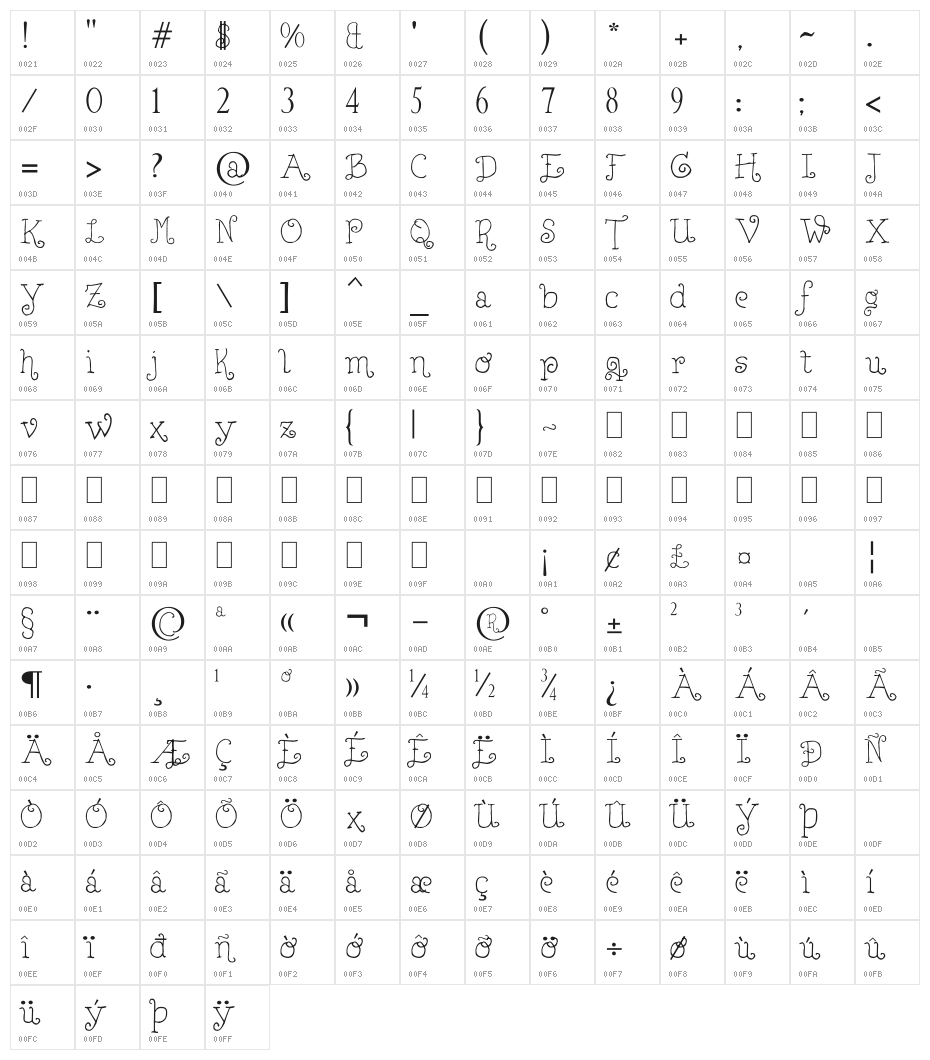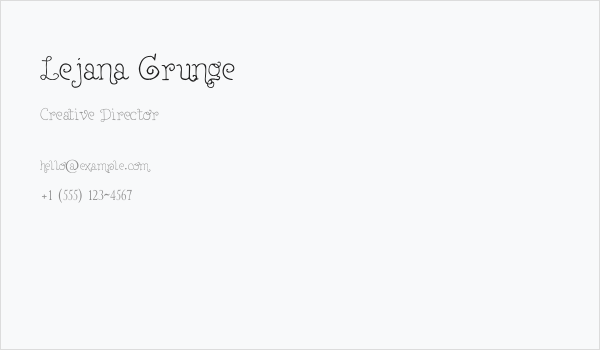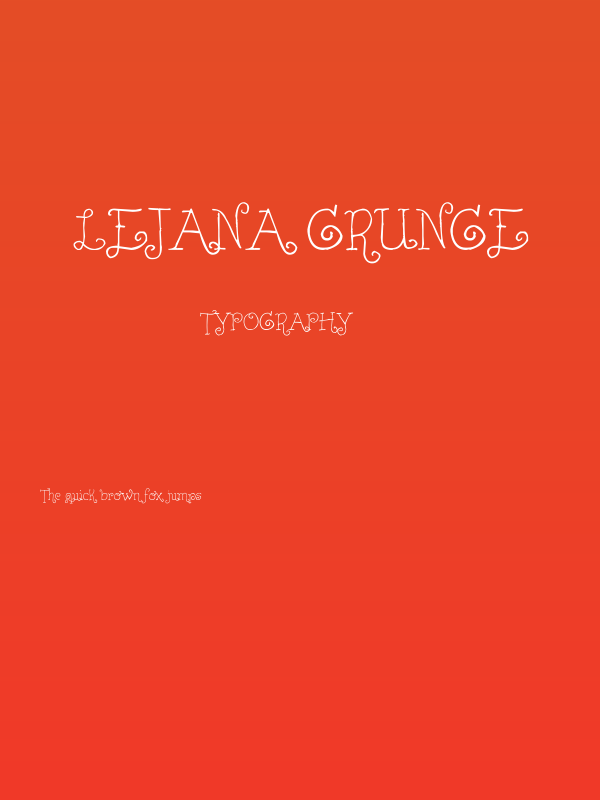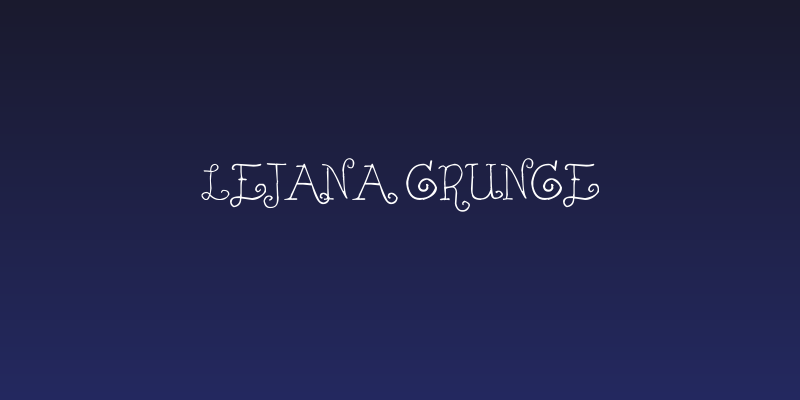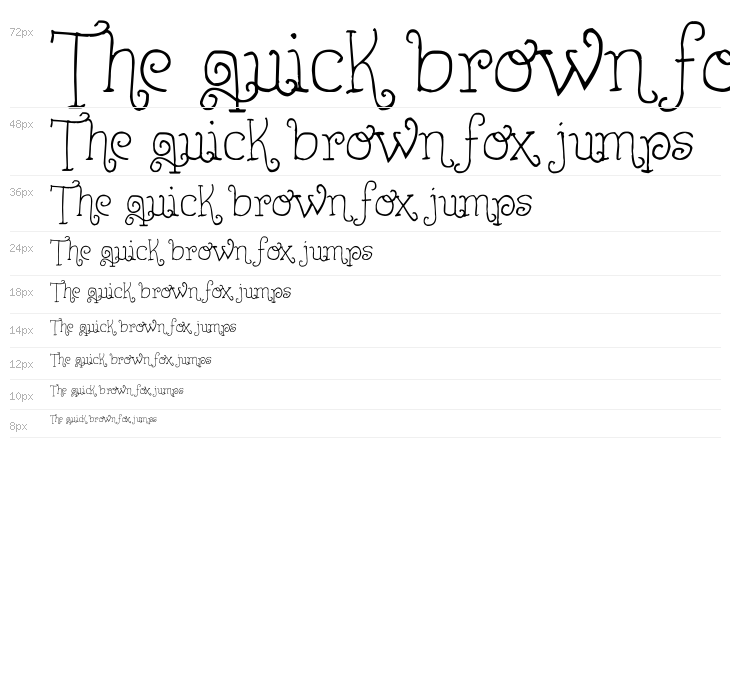
Lejana Grunge Font
Lejana Grunge Description
This font features a whimsical and playful design, characterized by its curly and decorative elements. Each letter is adorned with unique swirls and embellishments, giving it a hand-drawn, artistic feel. The uppercase letters are particularly ornate, with intricate loops and curves that add a sense of movement and flair. The lowercase letters maintain a similar style, though slightly more subdued, ensuring readability while retaining the font's distinctive charm. Numbers and special characters are designed to match the overall aesthetic, with consistent decorative touches. This font is ideal for projects that require a creative and eye-catching typeface.
| Use Case | Headlines, Artistic projects, Branding |
| Proposed Projects | Perfect for invitations, greeting cards, posters, and artistic branding. |